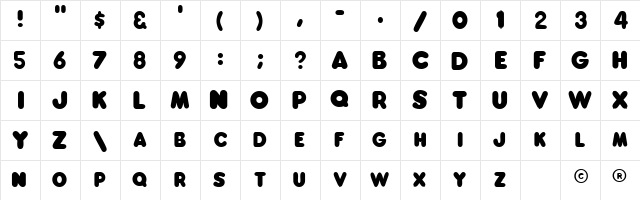
DunkinSCapsSSK Regular
Design Context for DunkinSCapsSSK Typeface
DunkinSCapsSSK offers clean, dependable letterforms without strong stylistic allegiance, making it a practical choice for designers who need flexibility.